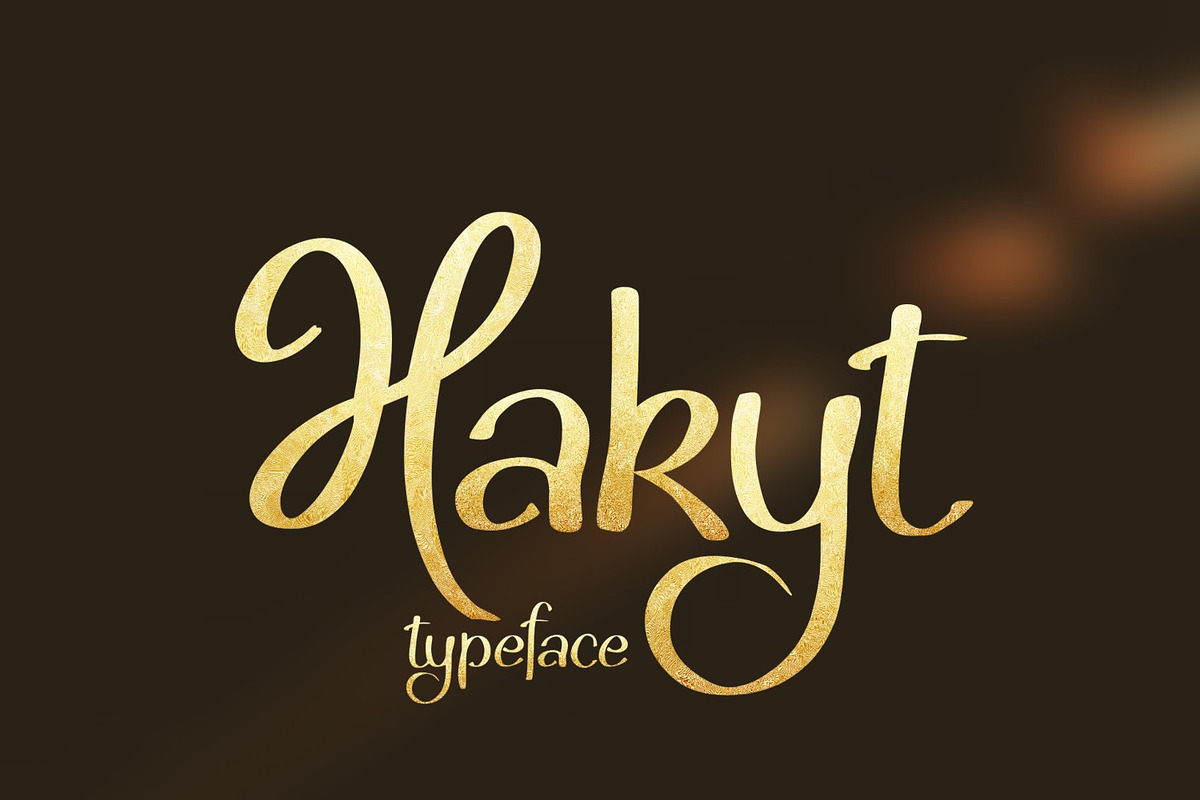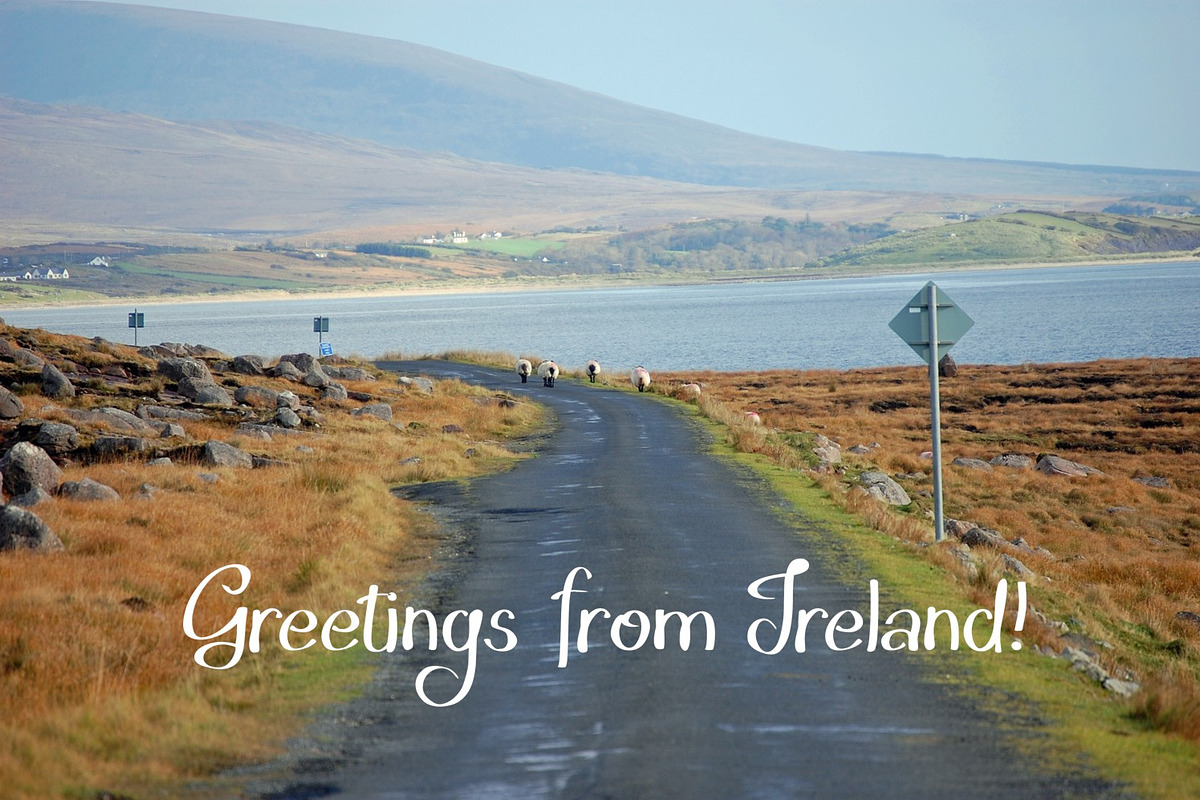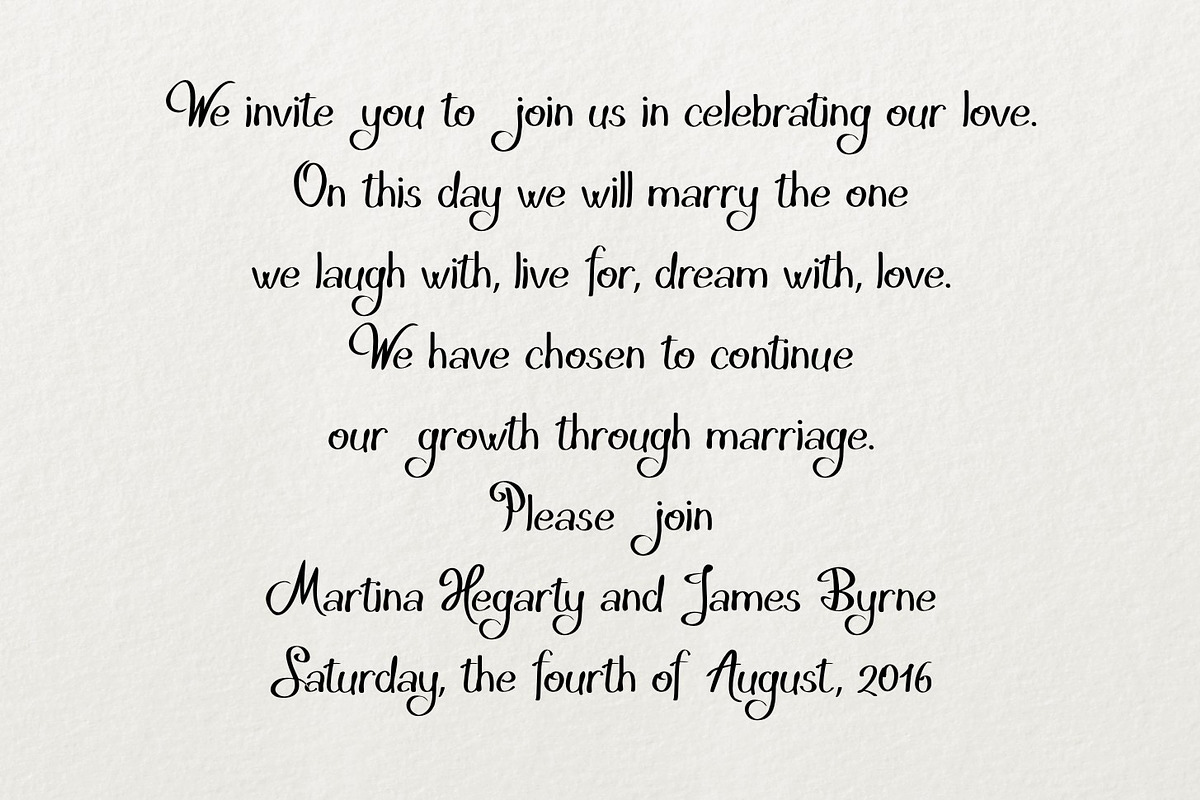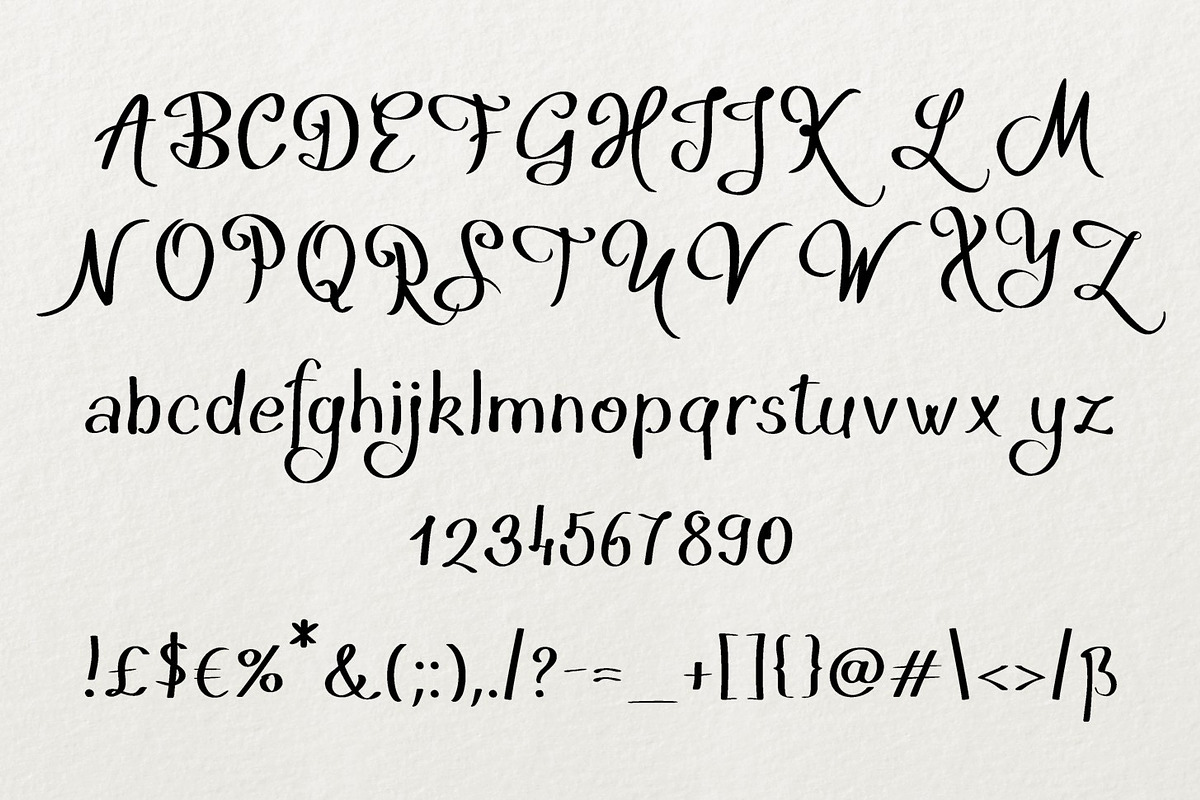
Hakyt
Introducing Hakyt hand lettered typeface. Great for wedding invitations or other stationeries.
Why Hakyt is worth a look
Hakyt by Digital Typeface Studio fits naturally into Branding, posters, packaging, typography.